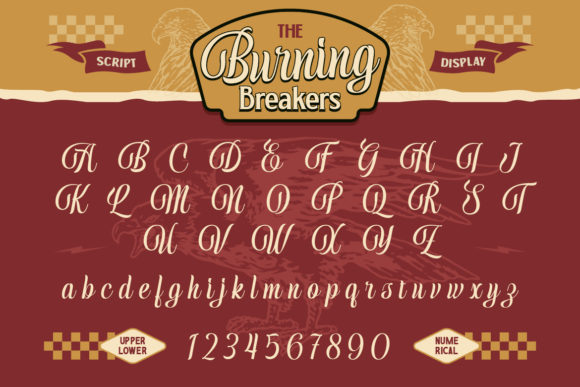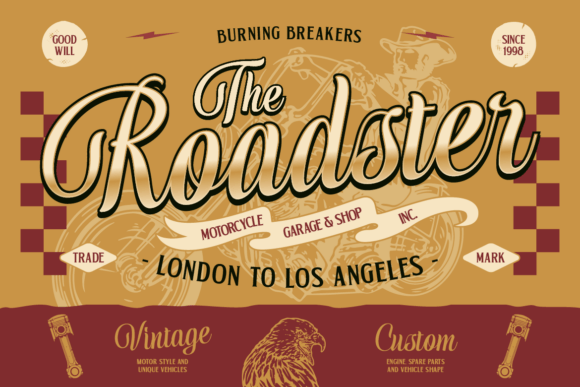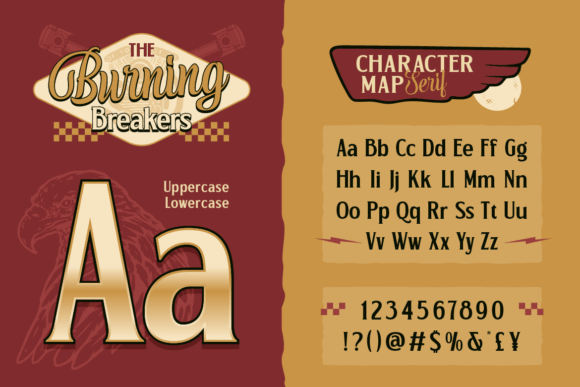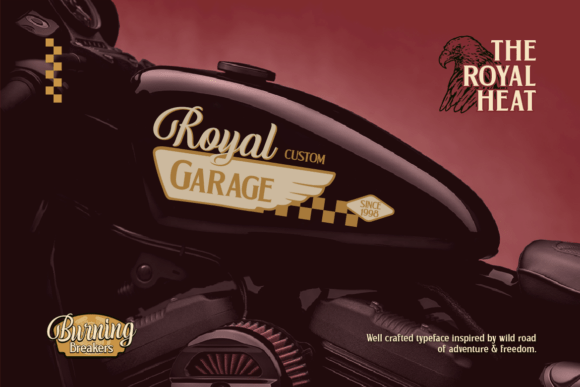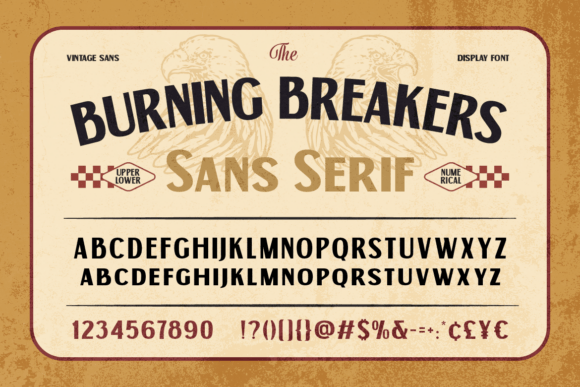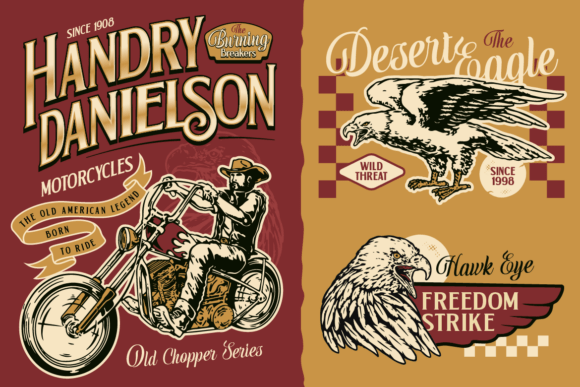
The Ride of a Lifetime: Introducing Burning Breakers Font
Have you ever been on a motorcycle ride with the wind in your hair, feeling the rush of freedom as you speed down the open road? For designers, that feeling is what inspires the creation of a truly unique font like Burning Breakers. This triple font combines the classic styles of serif, sans serif, and script, evoking the spirit of adventure and rebellion.
Burning Breakers Font is designed to capture the essence of American motorcycles, with a vintage, masculine design that’s perfect for logos, apparel, and posters. With its bonus vector illustrations, it’s not just a font – it’s a way to connect with a culture that values freedom and individuality. Whether you’re designing for a global audience or a niche community, Burning Breakers Font is a valuable addition to any designer’s toolkit.
Burning Breakers Font Key Features
- Font Family: Burning Breakers Font is a unique, hand-drawn font designed to evoke a sense of energy and movement.
- Character Count: The font includes a wide range of characters, including uppercase and lowercase letters, numbers, punctuation marks, and special characters.
- Size: The font is available in a single weight, making it easy to use in a variety of design contexts.
- Unique Characteristics: Burning Breakers Font features a dynamic, hand-drawn style with bold lines and expressive flourishes, adding a touch of personality to any design.
Burning Breakers Font Review
Overall, I was excited to dive into the Burning Breakers font, but my experience was a mixed bag. Here’s the breakdown:
- The font’s energetic and dynamic feel is perfect for creating attention-grabbing headlines or titles.
- The bold and condensed style makes it ideal for use in digital media, such as social media posts, website headers, or mobile apps.
- The font’s versatility allows it to work well in both modern and futuristic designs.
- The font may be difficult to read in smaller text sizes, making it less suitable for body text or paragraphs.
- The condensed style can make the font feel cramped or cluttered if not used thoughtfully.
- The font’s overall aesthetic may not be to everyone’s taste, and some users may find it too bold or overwhelming.
The Burning Breakers font is a solid choice for designers looking to add some edge and energy to their projects. While it may not be perfect for every use case, it’s a great option for creating bold, attention-grabbing headlines or titles. Just be mindful of the font’s limitations and use it thoughtfully to avoid overwhelming your audience.
The Burning Breakers font is a great choice for designs that need a bold, edgy look. Some common use cases include:
- Rock band or music festival promotions
- Action-packed movie or video game trailers
- Edgy fashion or streetwear designs
Remember to use the font in moderation, as it can be overpowering if used too extensively.